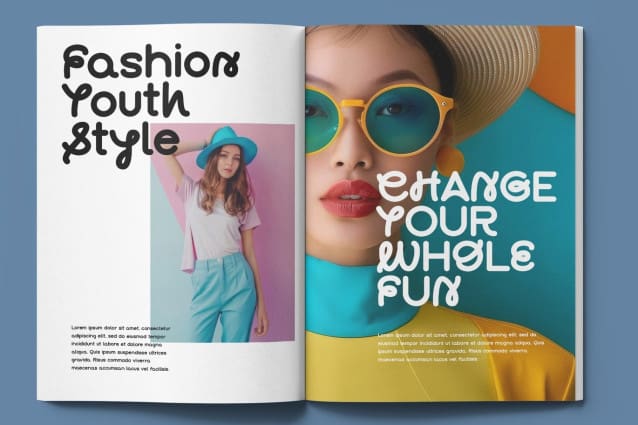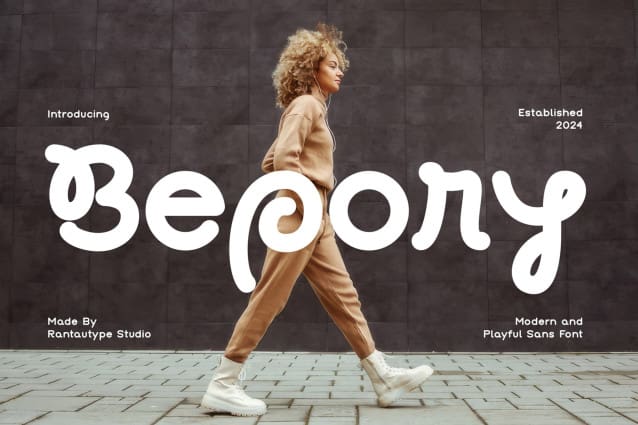
Bepory Font
Bepory Font is a perfect choice for any creative, chic and lifestyle design such as logotype, advertisements, watermark on photography, stationery, branding project, display and magazine, flyer, invitation, corporate branding, product design, label, commercial project and many other projects with a modern and fun touch.